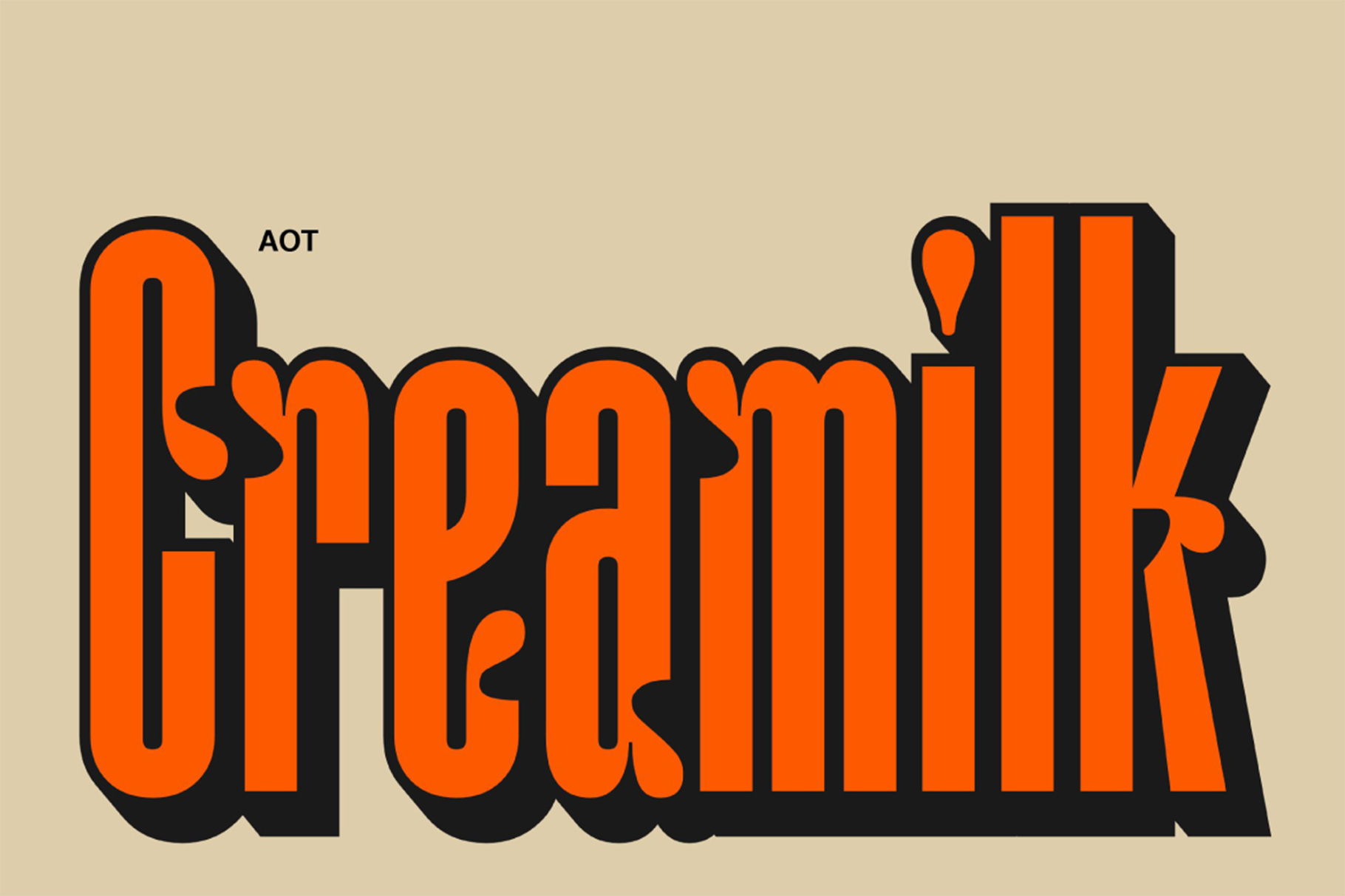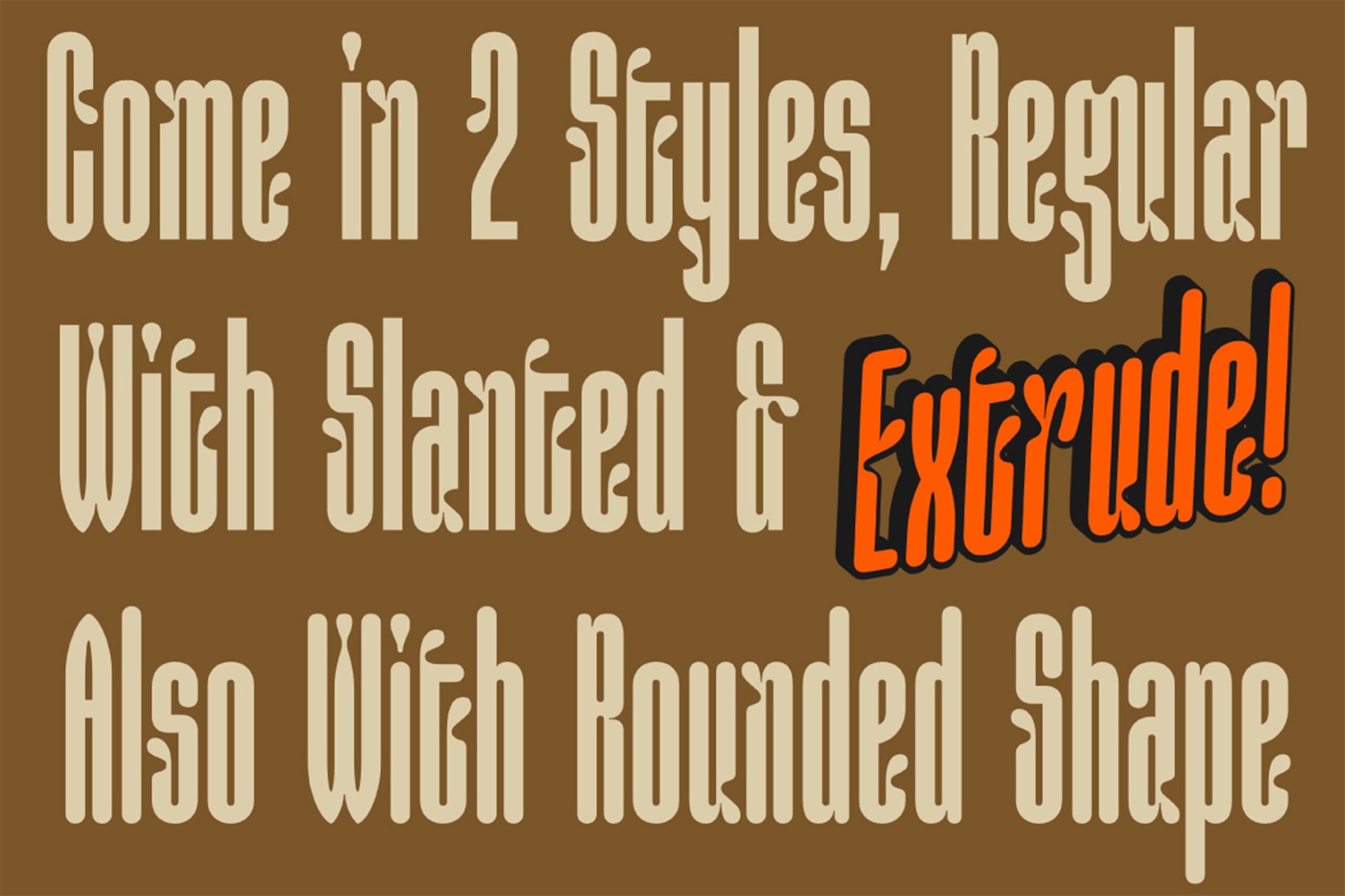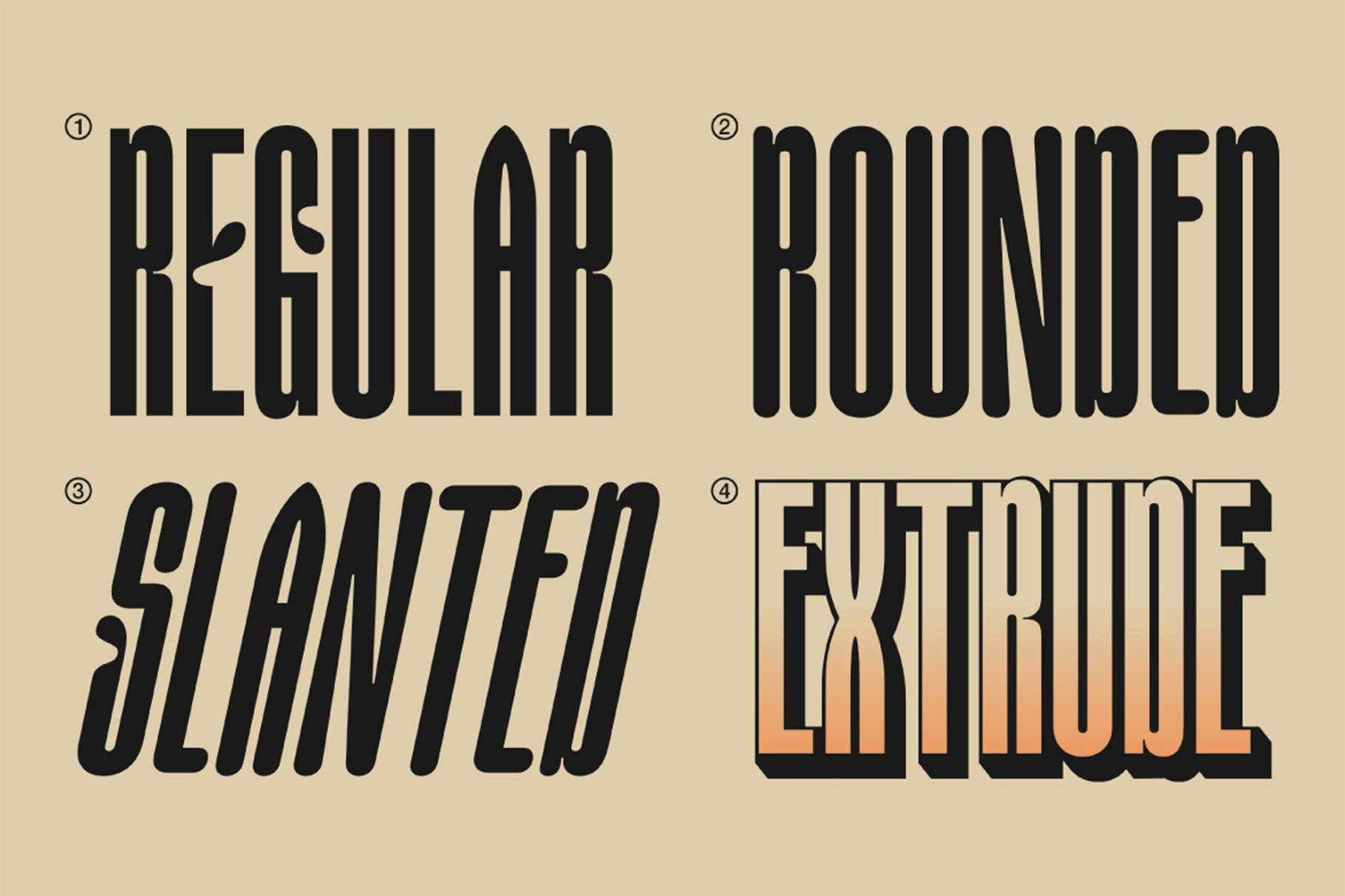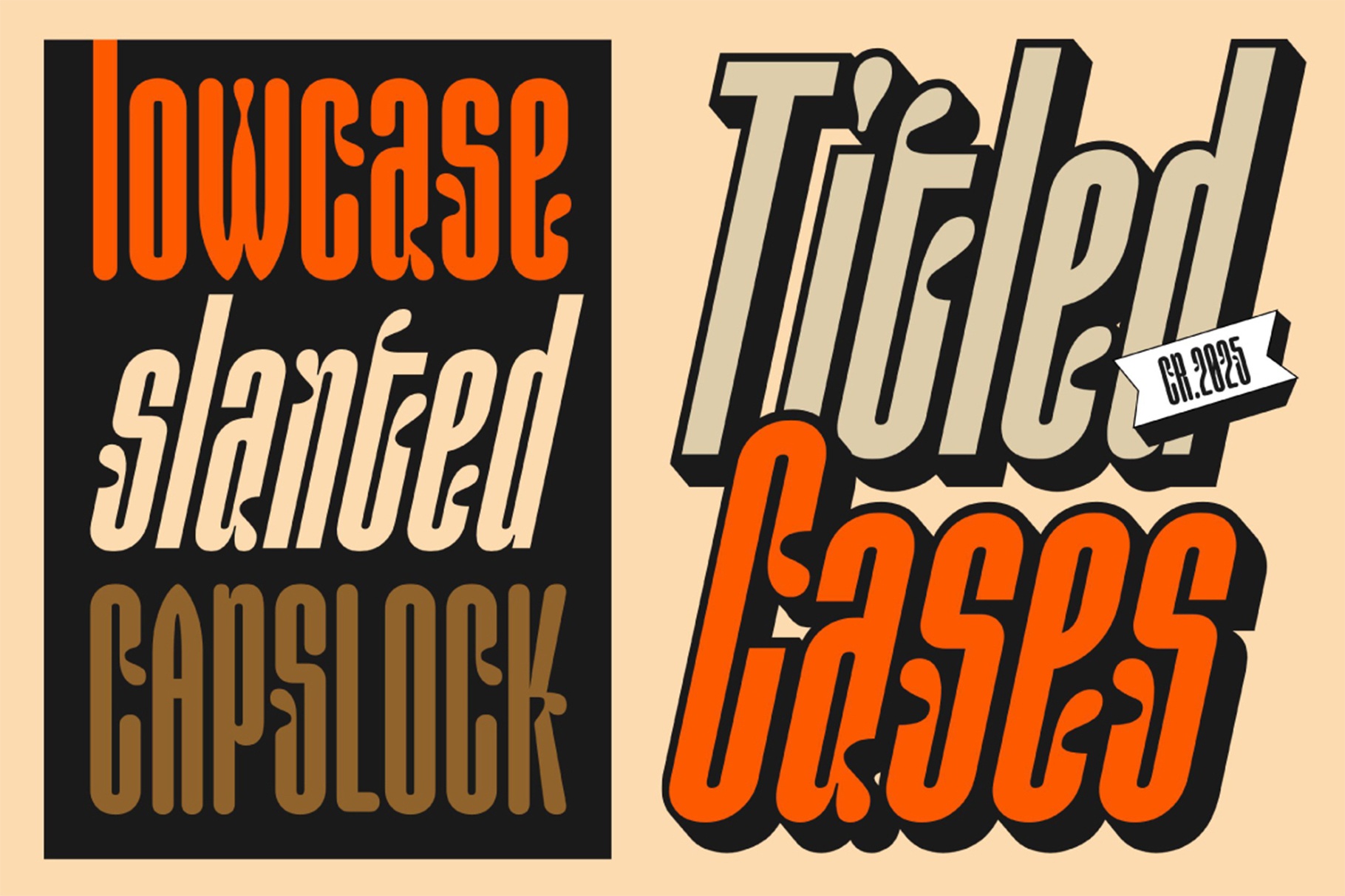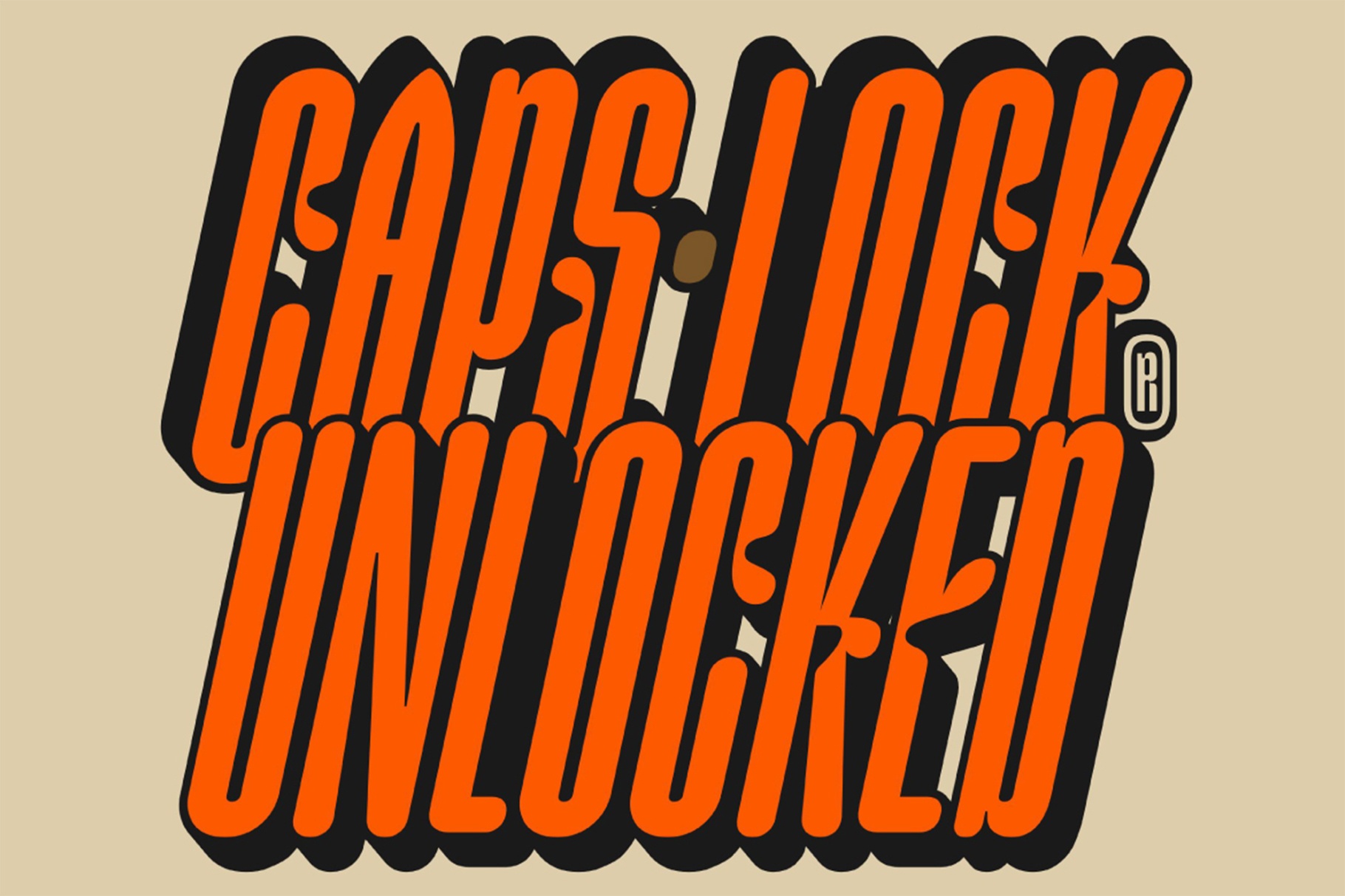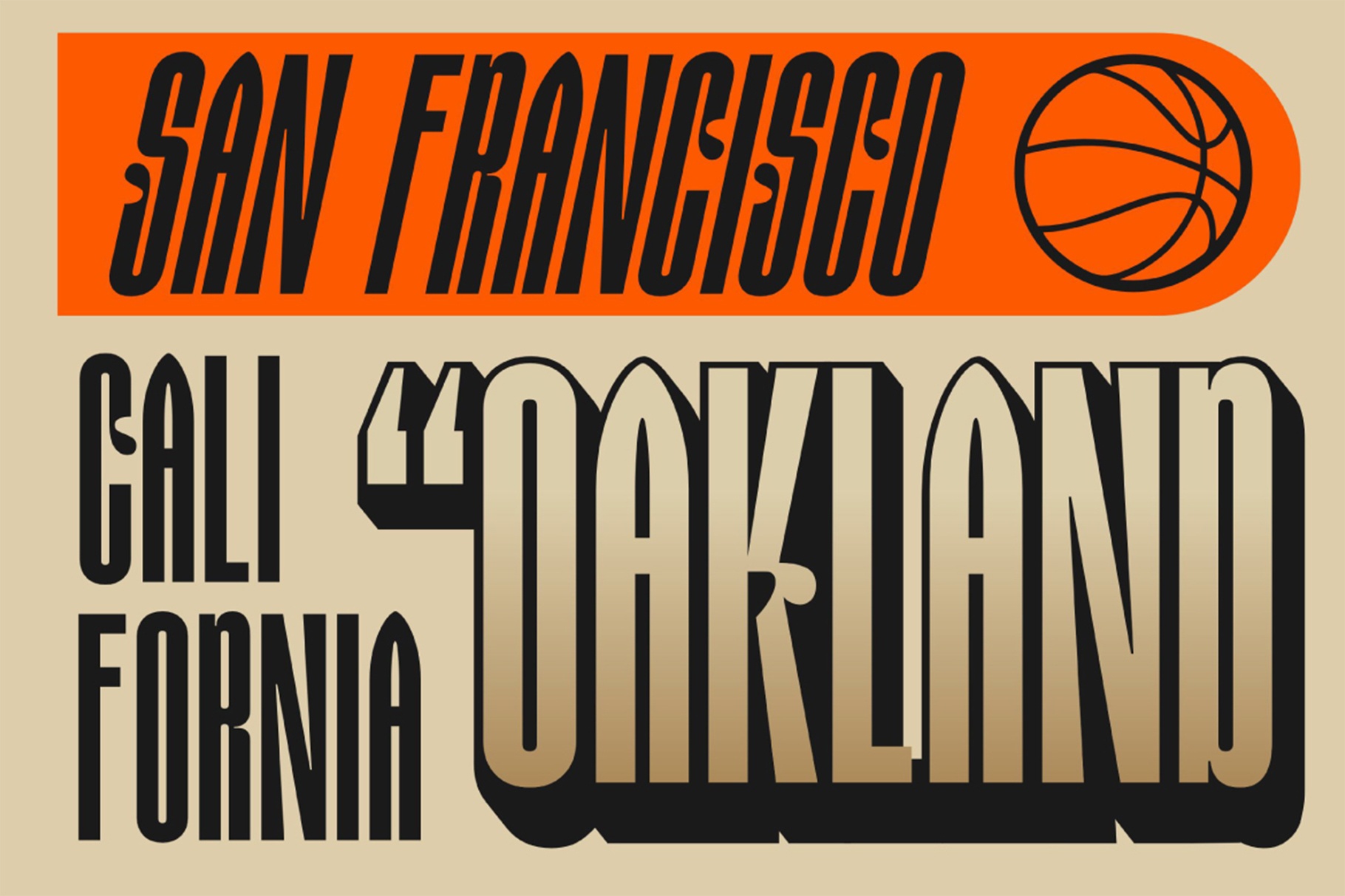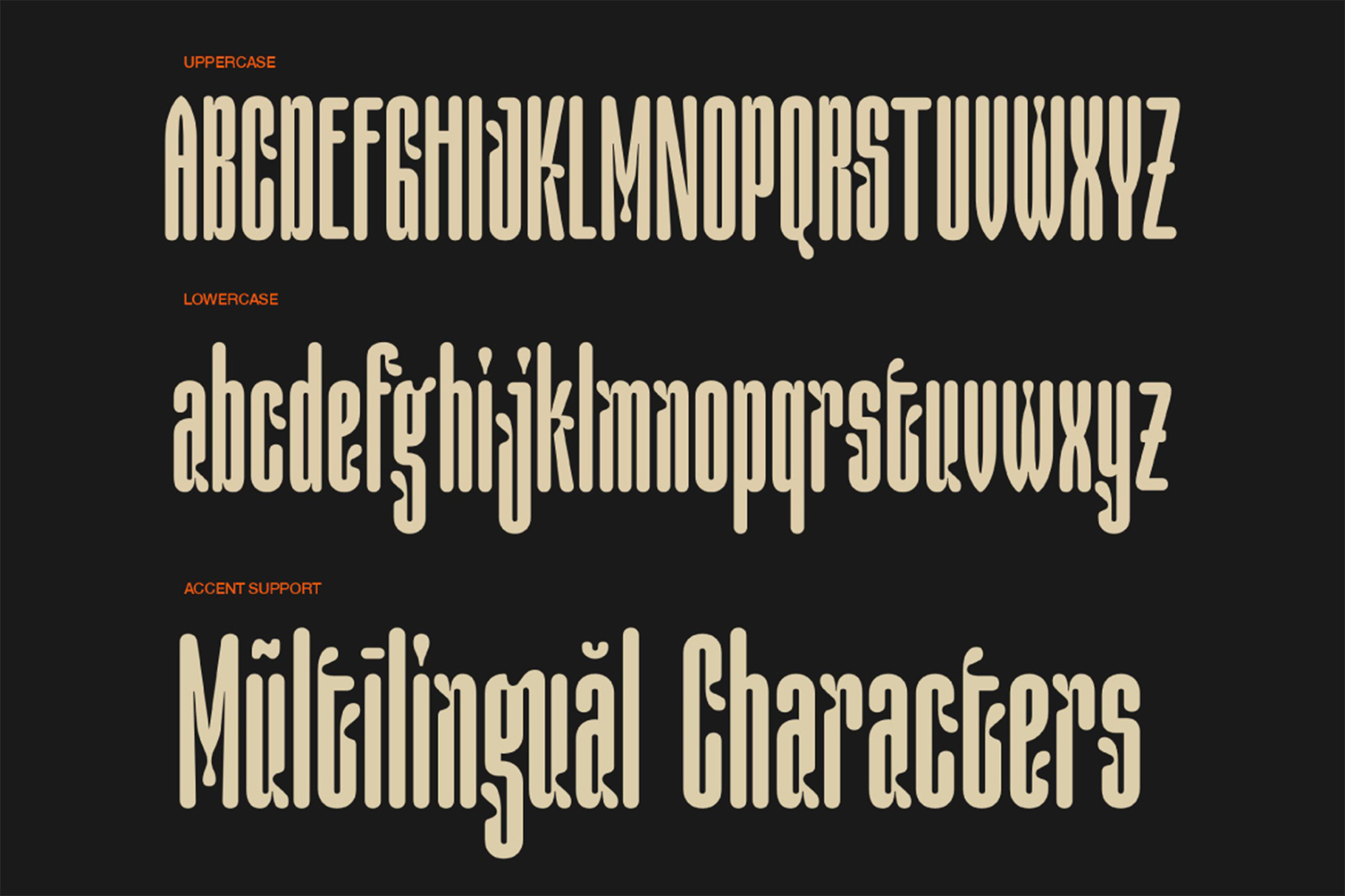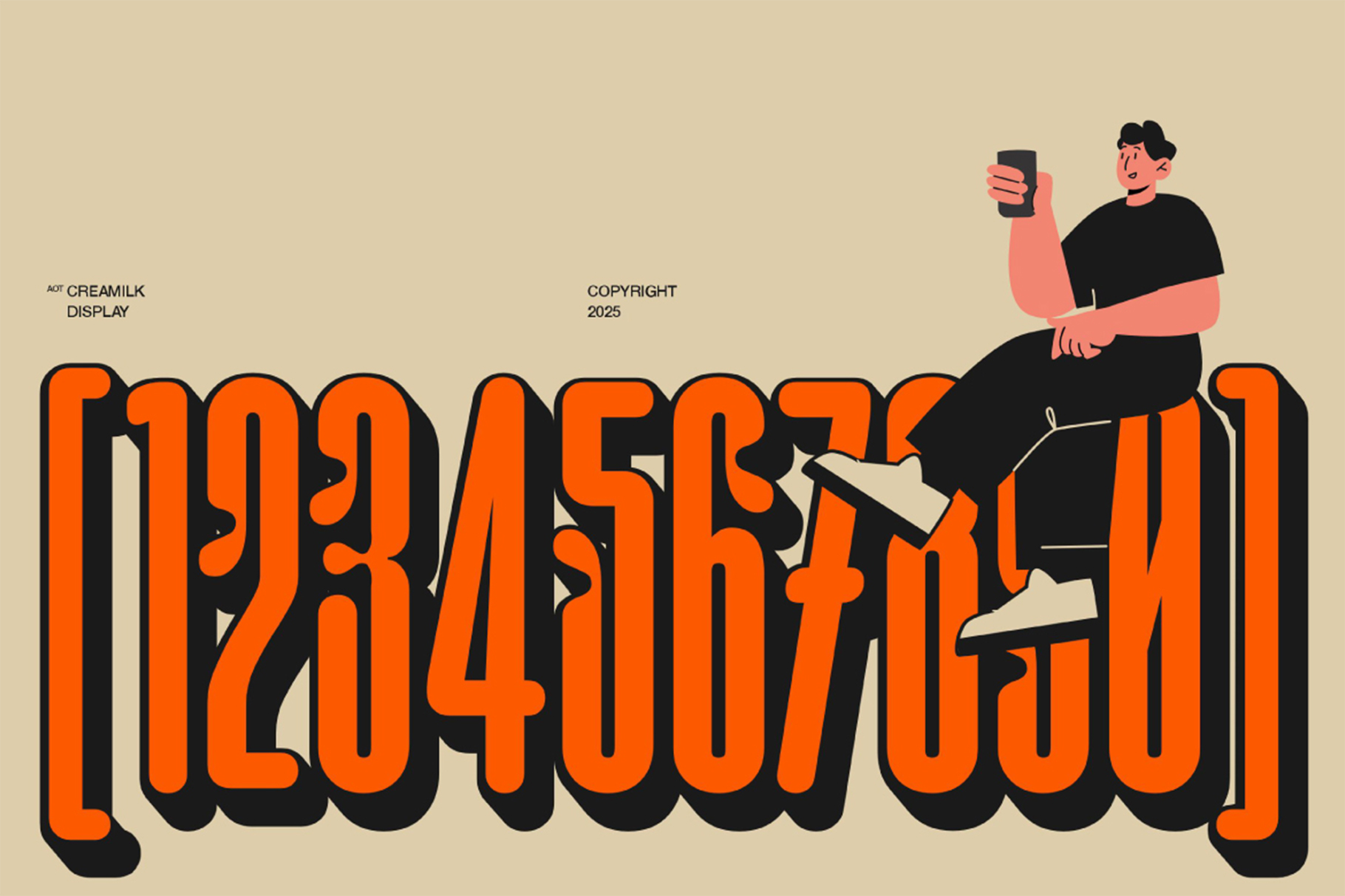
AOT Creamilk – A Playful Condensed Display Font
AOT Creamilk – A Playful Condensed Display Font is a dynamic and versatile typeface that blends bold confidence with whimsical charm. Its clean geometric lines and condensed proportions make it perfect for eye-catching headlines, posters, packaging, and social media graphics that need personality without sacrificing readability.
With 8 unique styles including Regular, Rounded, Slant, and Extrude, AOT Creamilk offers endless creative possibilities for layered typography, branding projects, and expressive visual storytelling. The thoughtful balance of structure and playful details ensures it works equally well for modern logos, apparel design, digital ads, and merchandise. AOT Creamilk font empowers designers to create memorable typography with effortless style and confident flair.